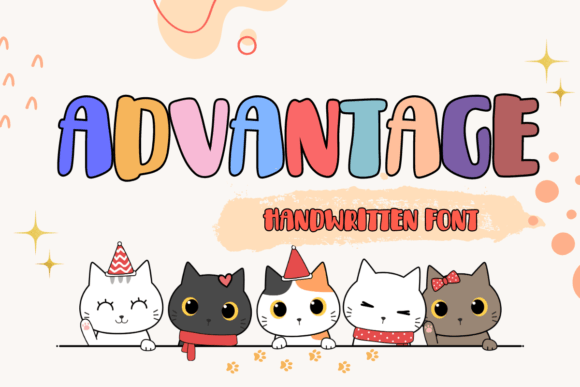
The Sweet Spot: Discovering the Advantage Font
I still remember the design project that led me to the Advantage font. I was working on a whimsical invitation for a friend’s kid’s birthday party, and I was struggling to find the perfect font. The design needed to be playful, yet elegant, and I wanted it to feel handmade. That’s when I stumbled upon Advantage, a sweet and friendly handwritten font that instantly captured the tone I was looking for.
- ✨ Advantage has a unique, hand-crafted feel that’s perfect for designs that need a personal touch.
- ✅ It’s highly legible, even at smaller font sizes, making it versatile for various design applications.
- ✅ The font comes with a range of OpenType features, including glyphs and stylistic alternates, which allow for creative experimentation.
While Advantage is an excellent font, there are a few things to keep in mind:
- ⚠️ Some users might find the font a tad too sweet or childish for certain projects. It’s essential to consider your design’s tone and audience.
- 🤔 The font’s uniqueness might make it less suitable for very formal or traditional designs.
The Story Behind Advantage
Advantage was designed by Jennifer Myers, a talented type designer known for her beautiful, handwritten fonts. According to her, Advantage was inspired by her own handwriting and a desire to create a font that felt friendly and approachable. The result is a font that’s both elegant and playful, perfect for a wide range of design applications.
| Font Name | Advantage Font |
| Author | Sirinart |
Q: Is Advantage suitable for body text?
A: While Advantage is legible, it’s primarily designed for display text. For body text, you might prefer a font with more traditional typography.